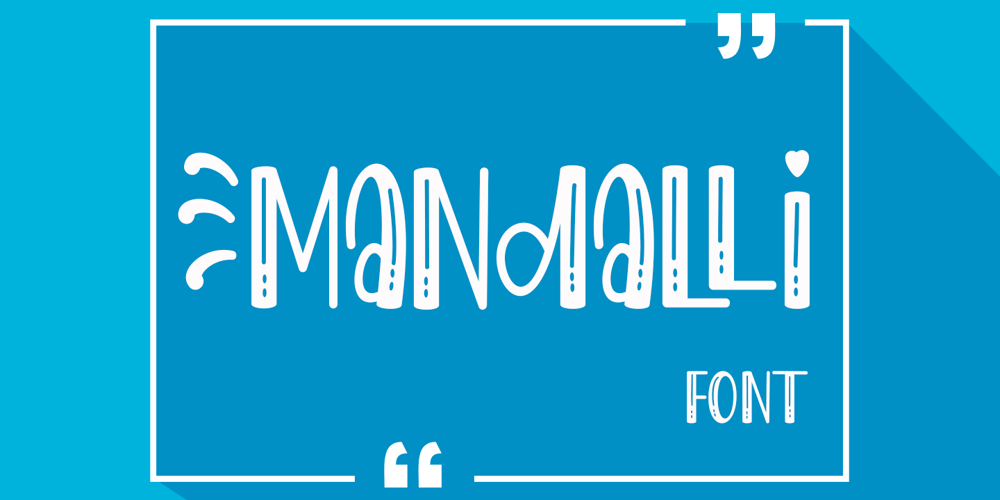
Mandalli Font Family was designed by Arief Tri Sulistiyono and published by Supersemarletter. Mandalli contains 1 styles and family package options. Mandalli is a fun and friendly display font. A little bit quirky, this font looks incredibly adept on a wide variety of contexts! It will look amazing in stationery, logos, social media post and any project that requires a unique look! This font is PUA encoded which means you can access all of the glyphs and swashes with ease! Honestly it works perfectly for headlines, logos, posters, packaging, T-shirts and much more.Font Features :• Regular version• Character set A-Z in uppercase and lowercase• Ligatures in lowercase• Numerals & Punctuation• Accented Characters• Multiple Languages SupportedRecommended to use in Adobe Illustrator or Adobe Photoshop with opentype feature.If you have questions, just send me a message and I’m glad to help.Best Regards,Supersemar Letter